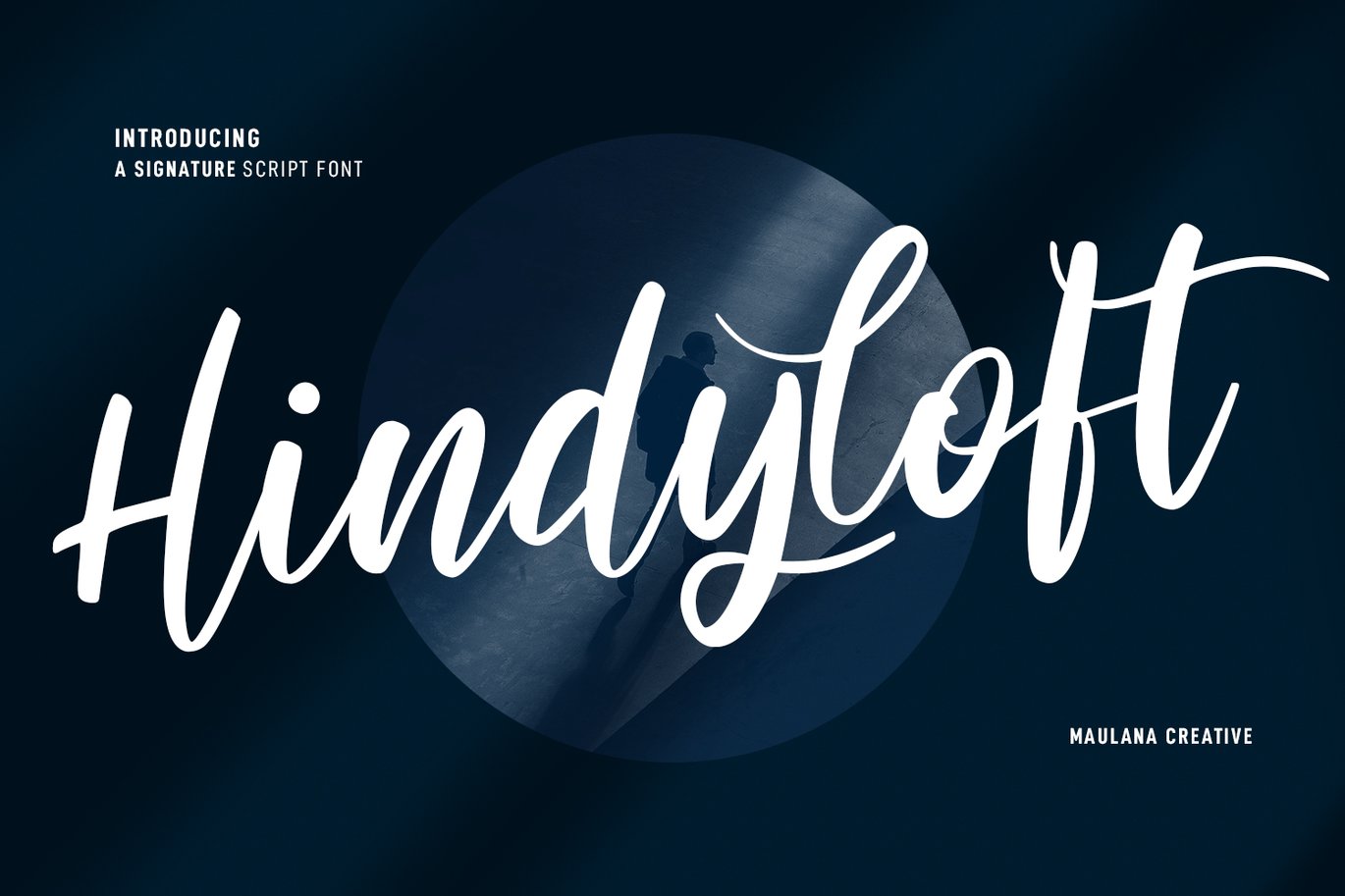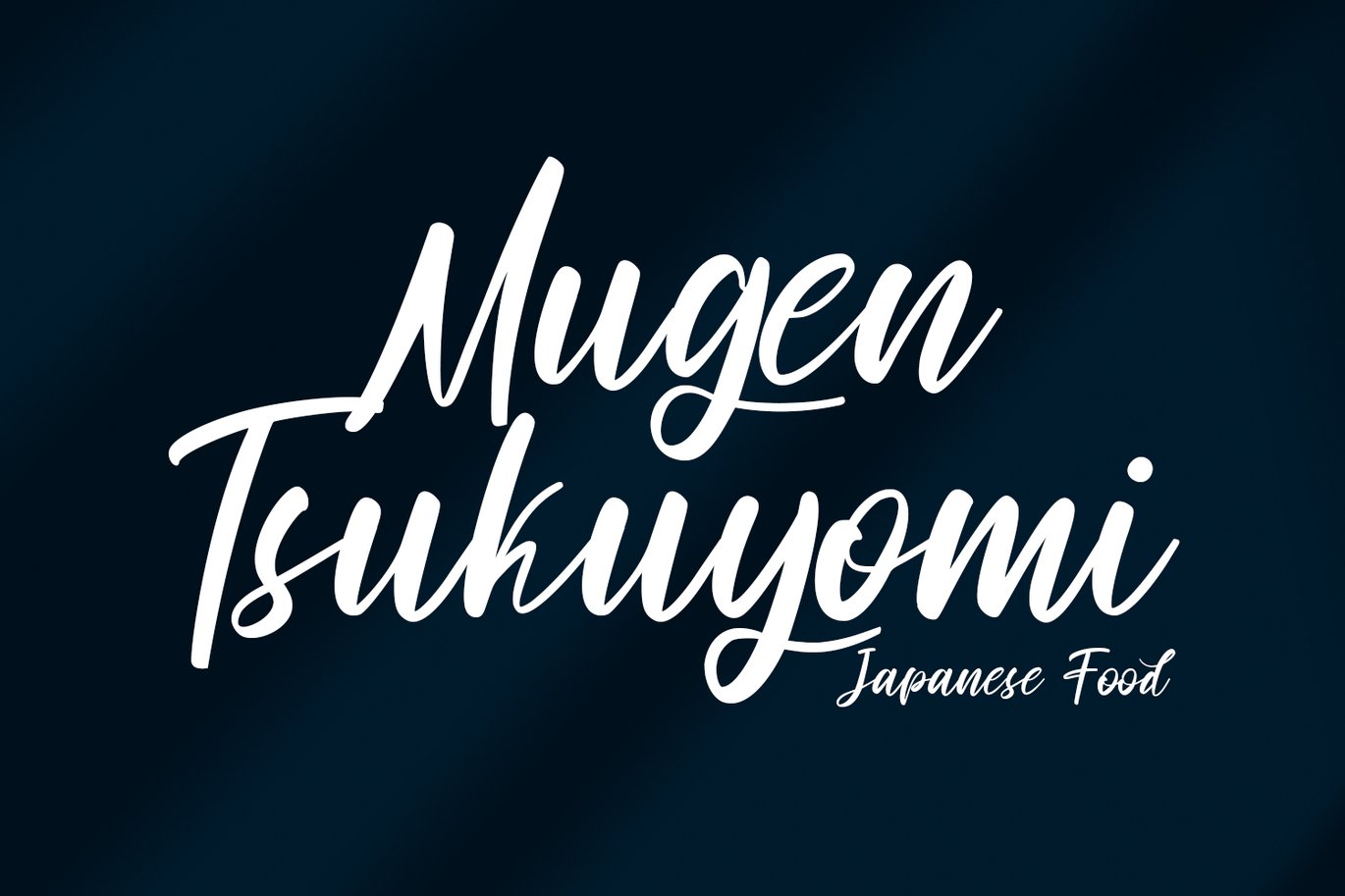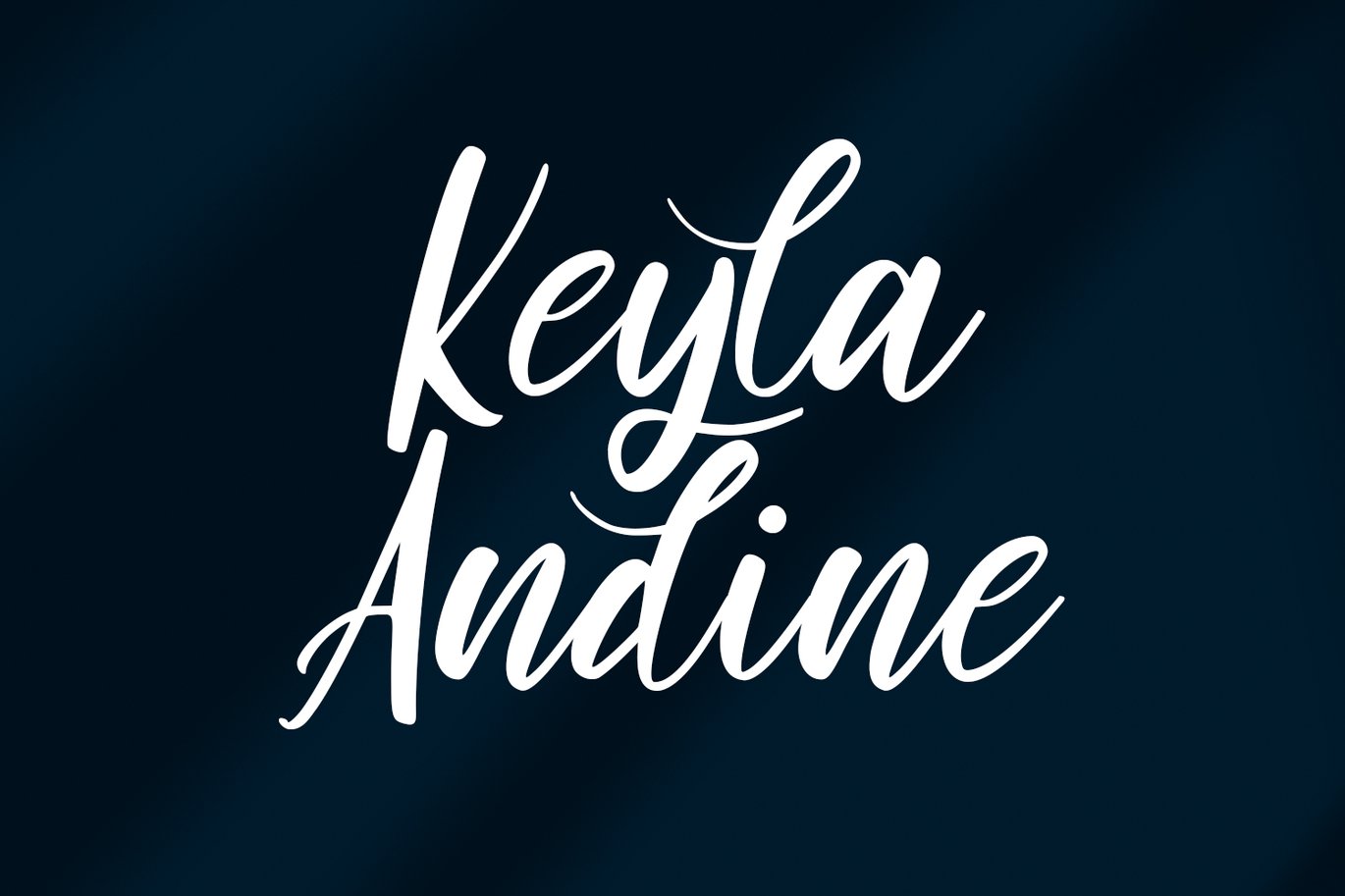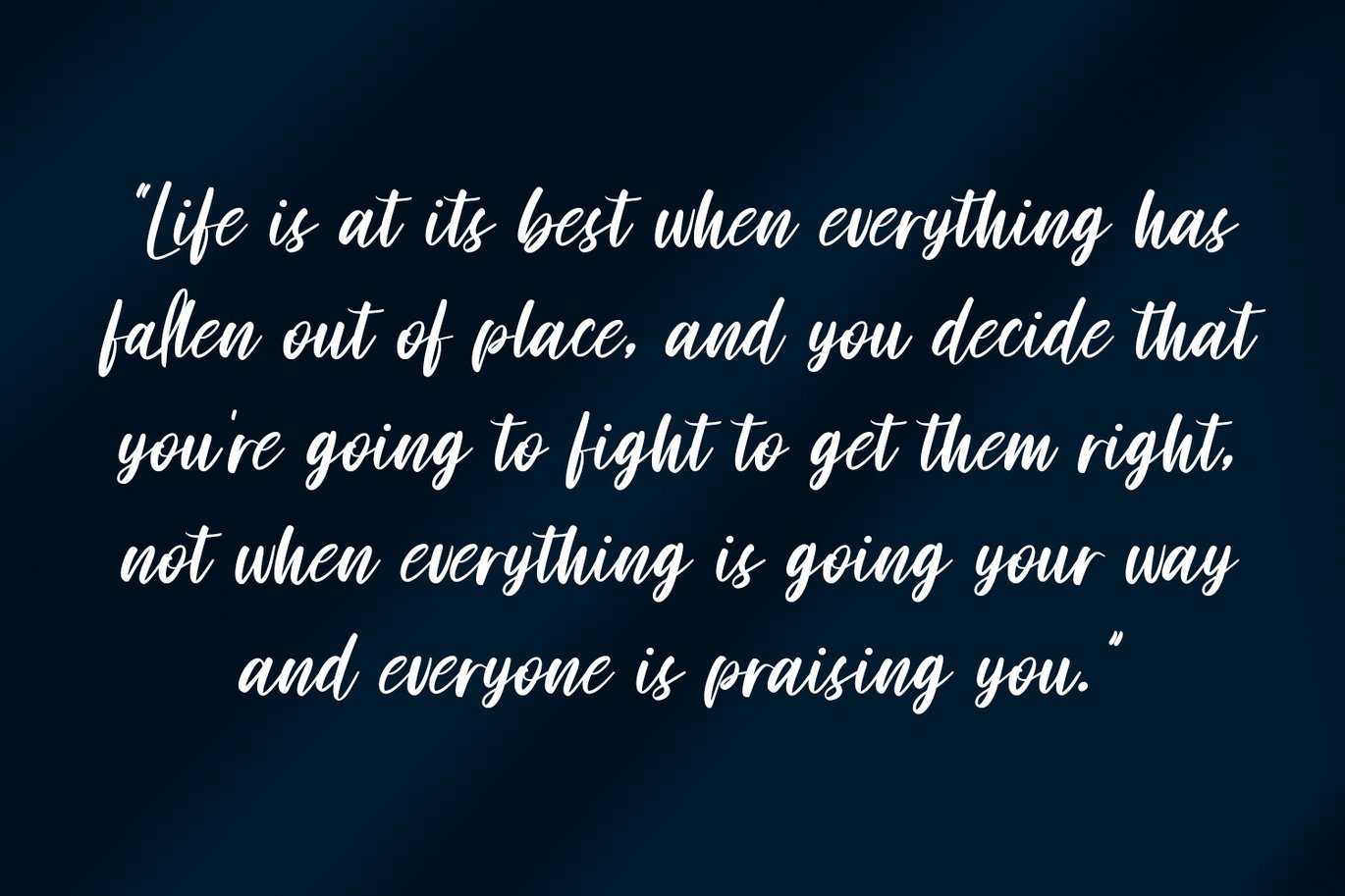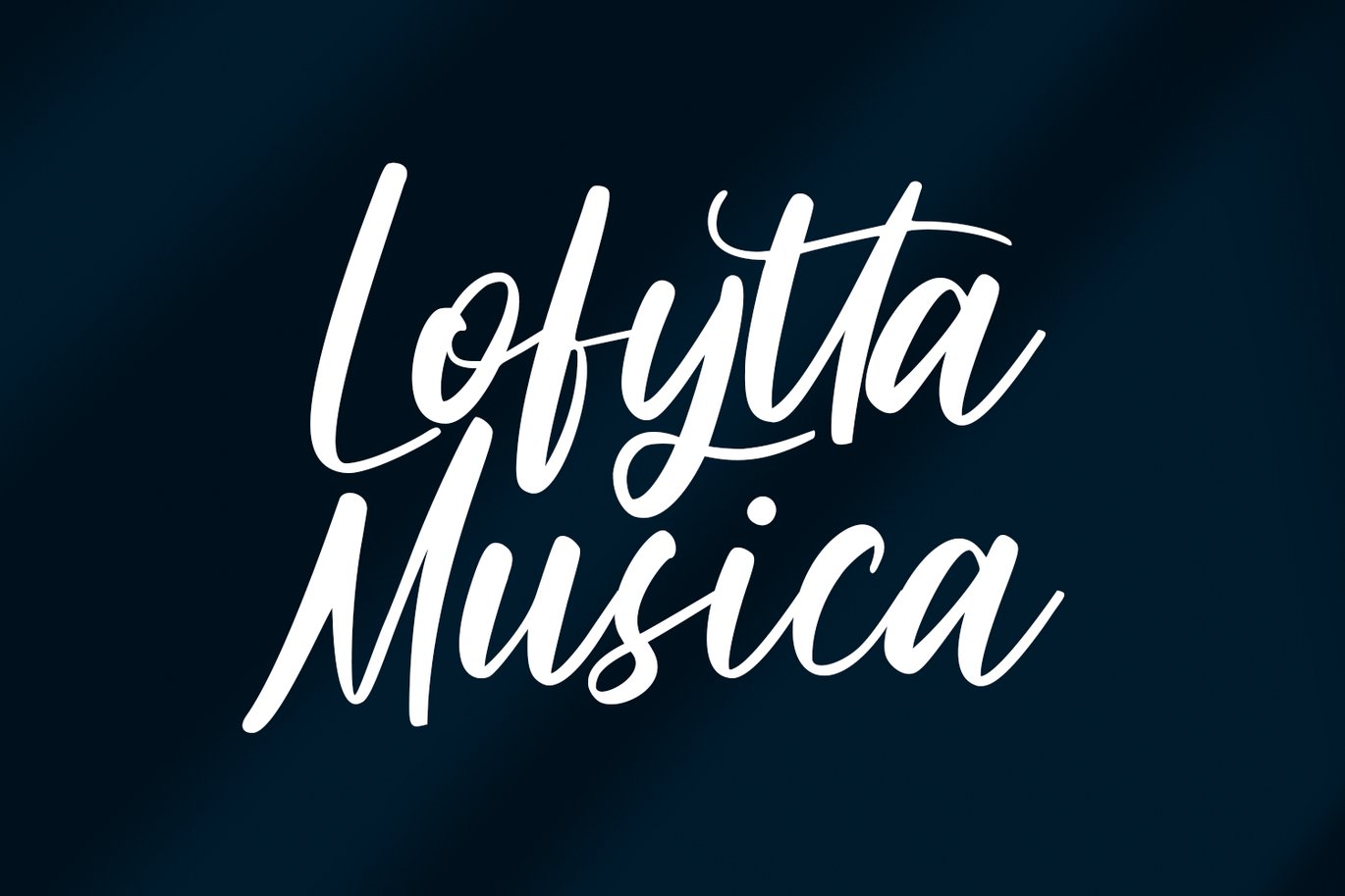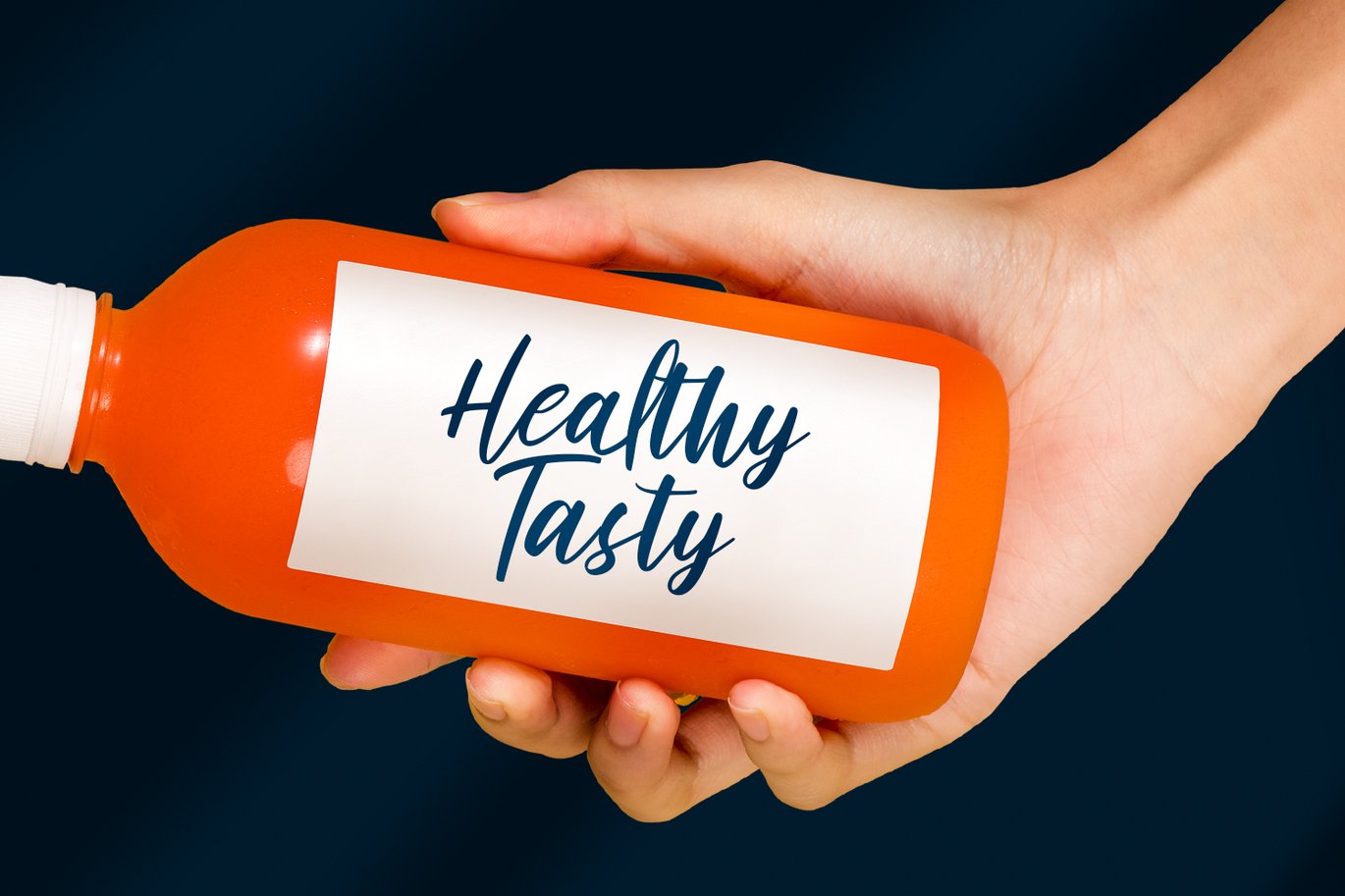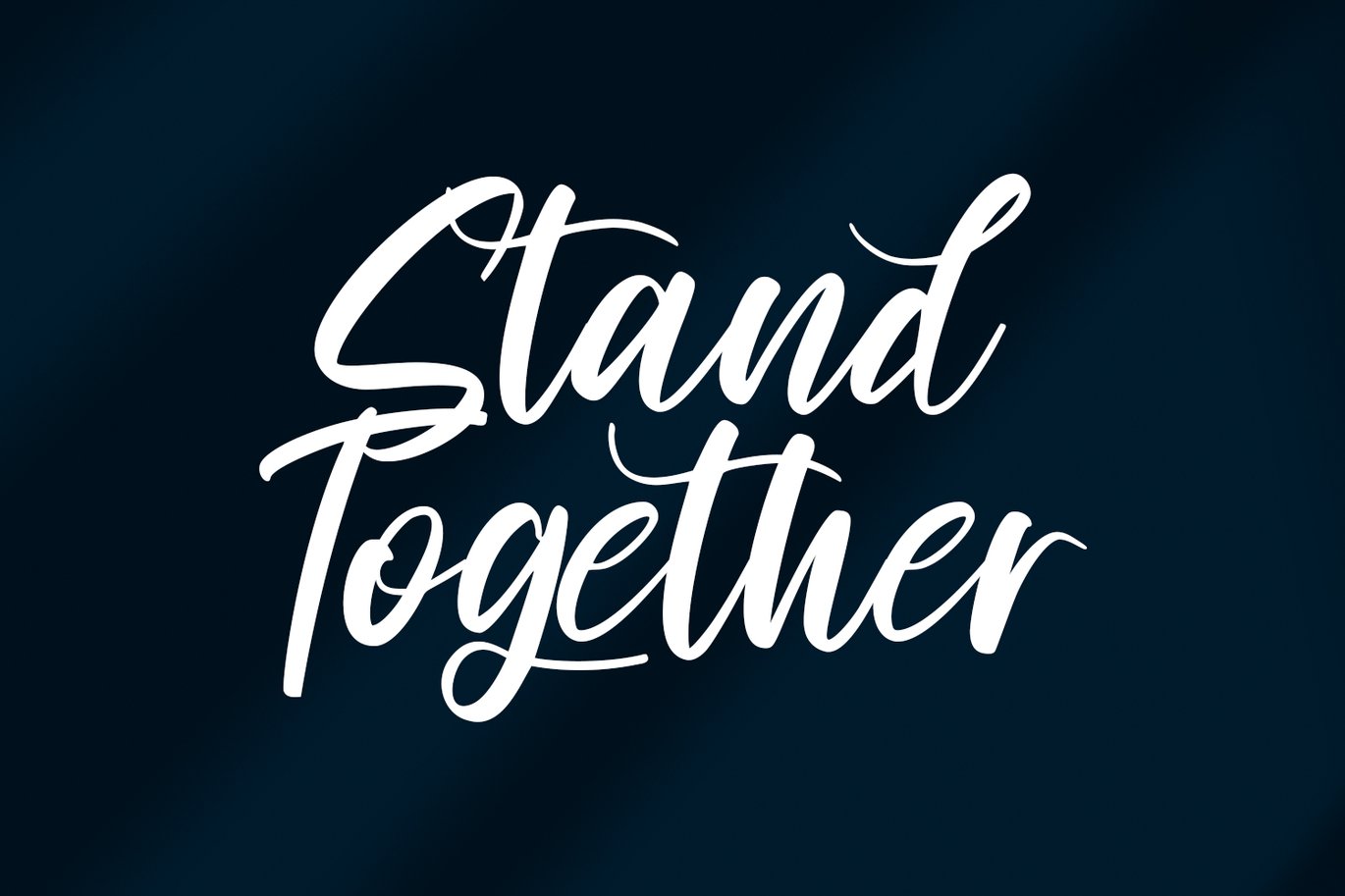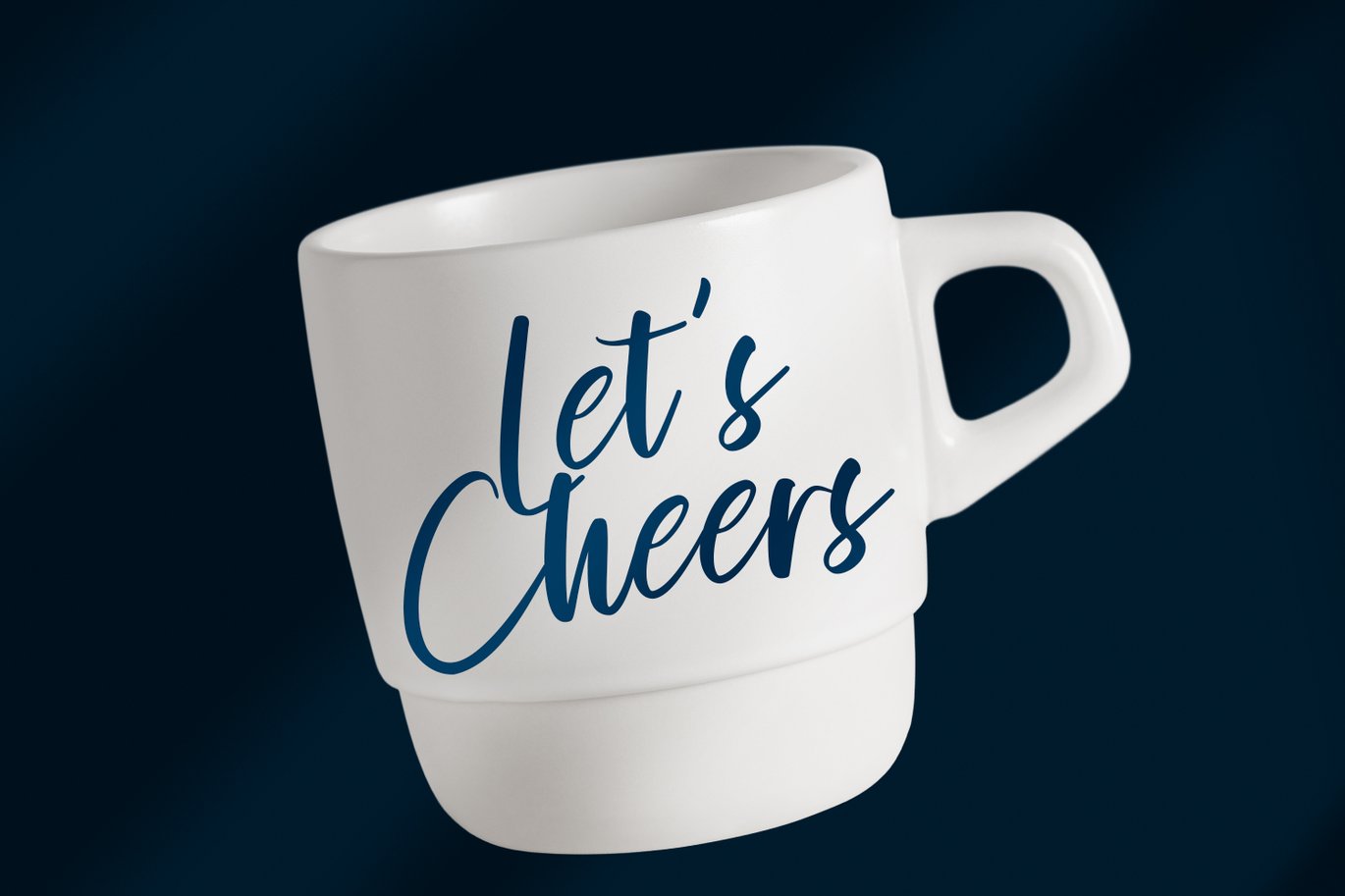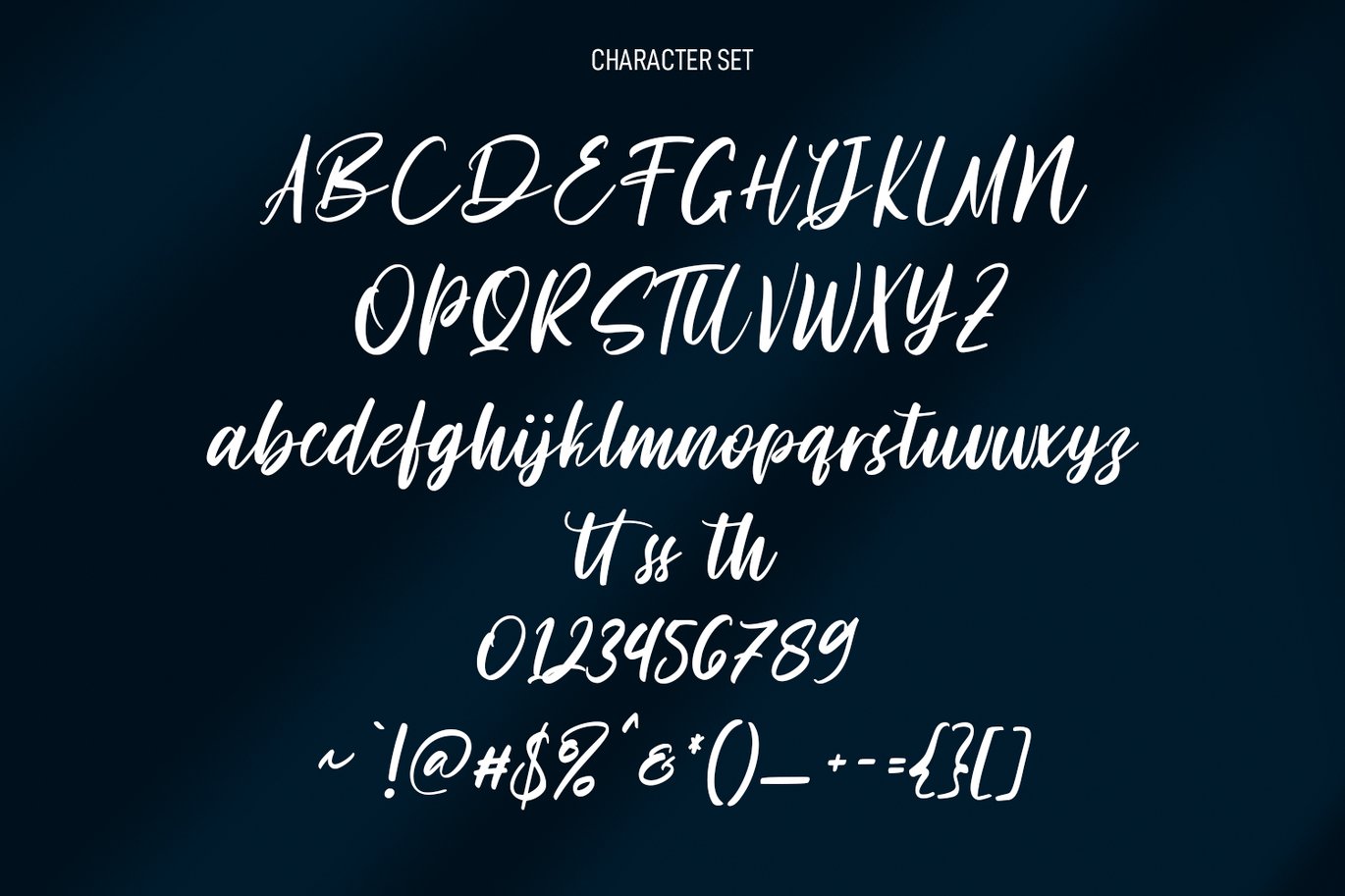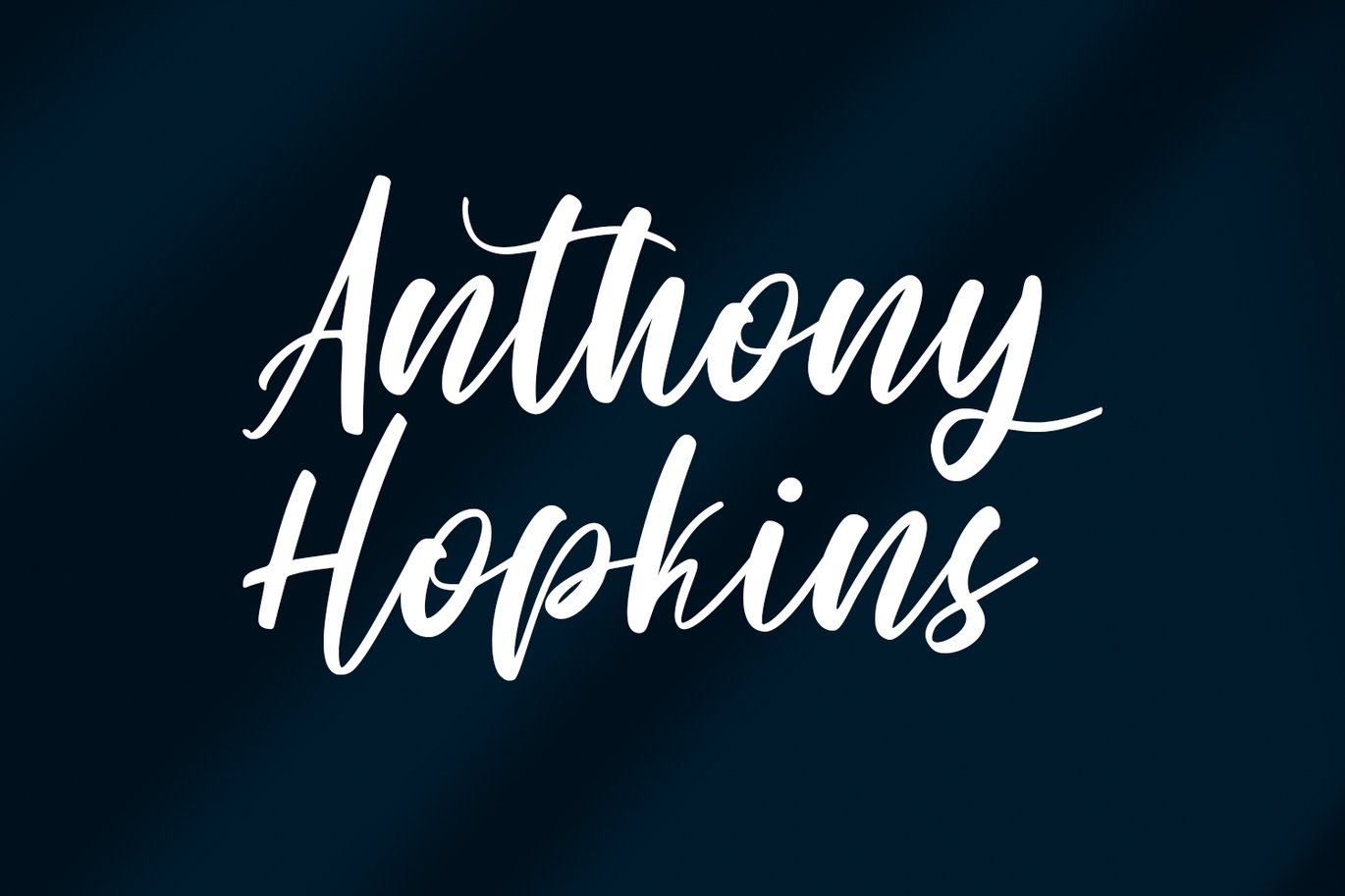
Hindyloft Signature Script Font
Hindyloft is a modern cursive script font. With high contrast stroke, fun character with a bit of ligatures and alternates. To give you an extra creative work. Hindyloft font support multilingual more than 100+ language. This font is good for logo design, Social media, Movie Titles, Books Titles, a short text even a long text letter and good for your secondary text font with sans or serif. Make a stunning work with Hindyloft font.